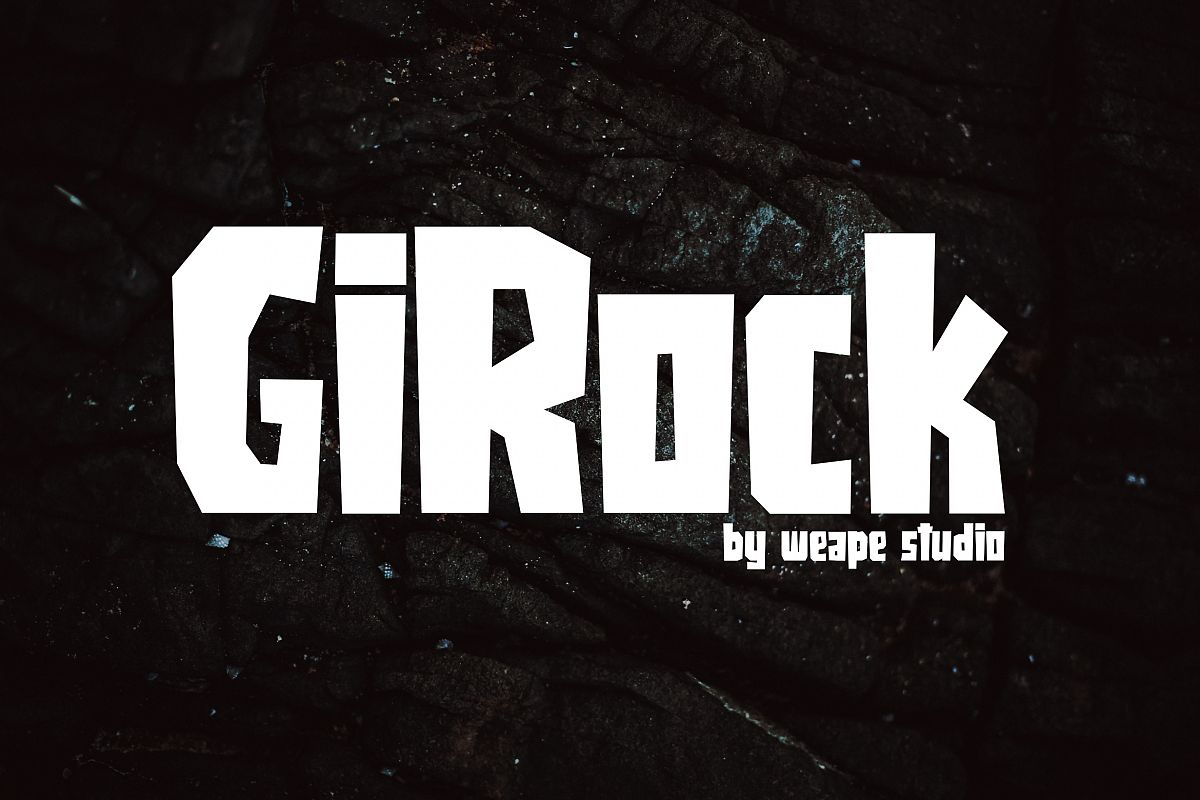
Girock
Introducing Girock, bold and poly font. You can use and enjoy Girock for anything from promotional material and poster quotes, to product packaging, merchandise and branding projects.
And this font perfect for logo, packaging, magazine, sport, poster, apparel, title, social media post, ad banner, book cover, poster quotes, greeting cards and advertising.
All fonts is capitals containing upper & lowercase characters, numerals and punctuation. With OTF and TTF format.